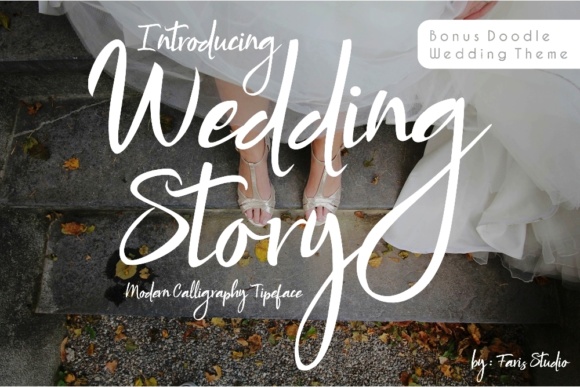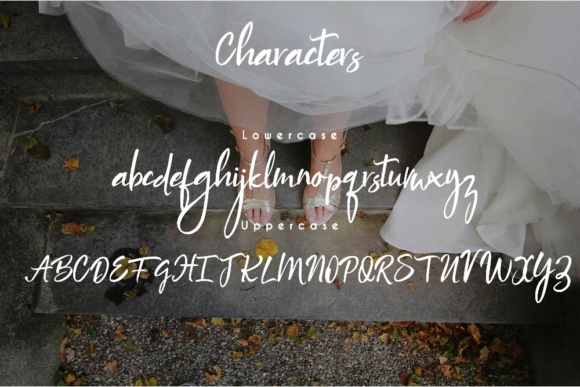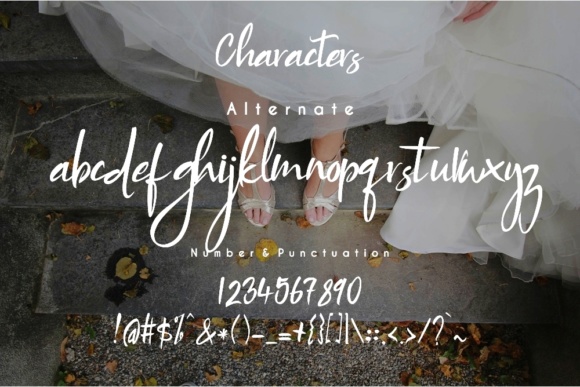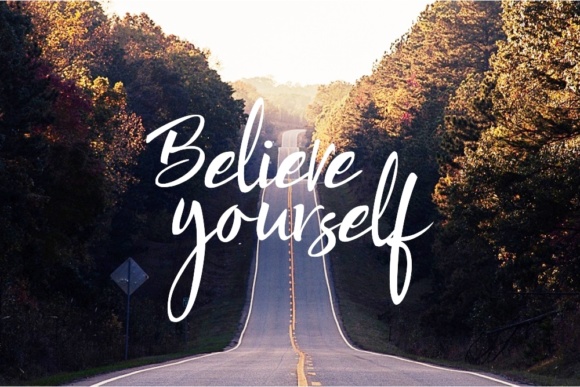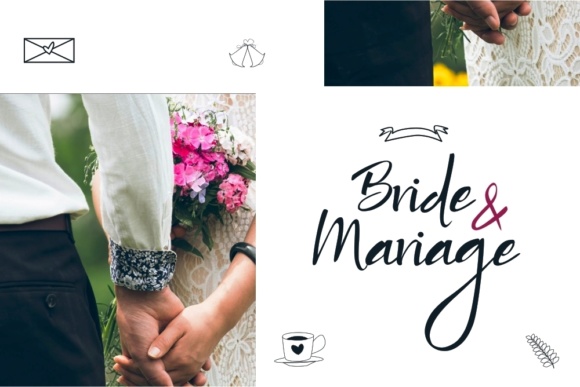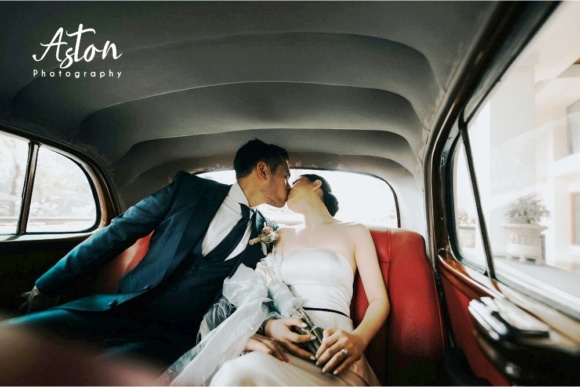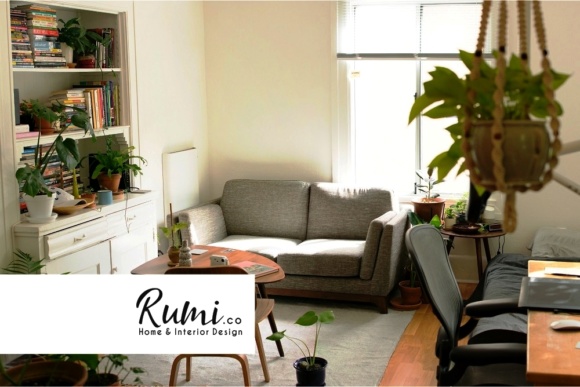
Wedding Story Font
About Wedding Story Font
Wedding Story is a hand written font that has a unique and strong style. Wedding Story works perfect in all sort of photos and design projects such as: fashion, wedding, branding, and more.